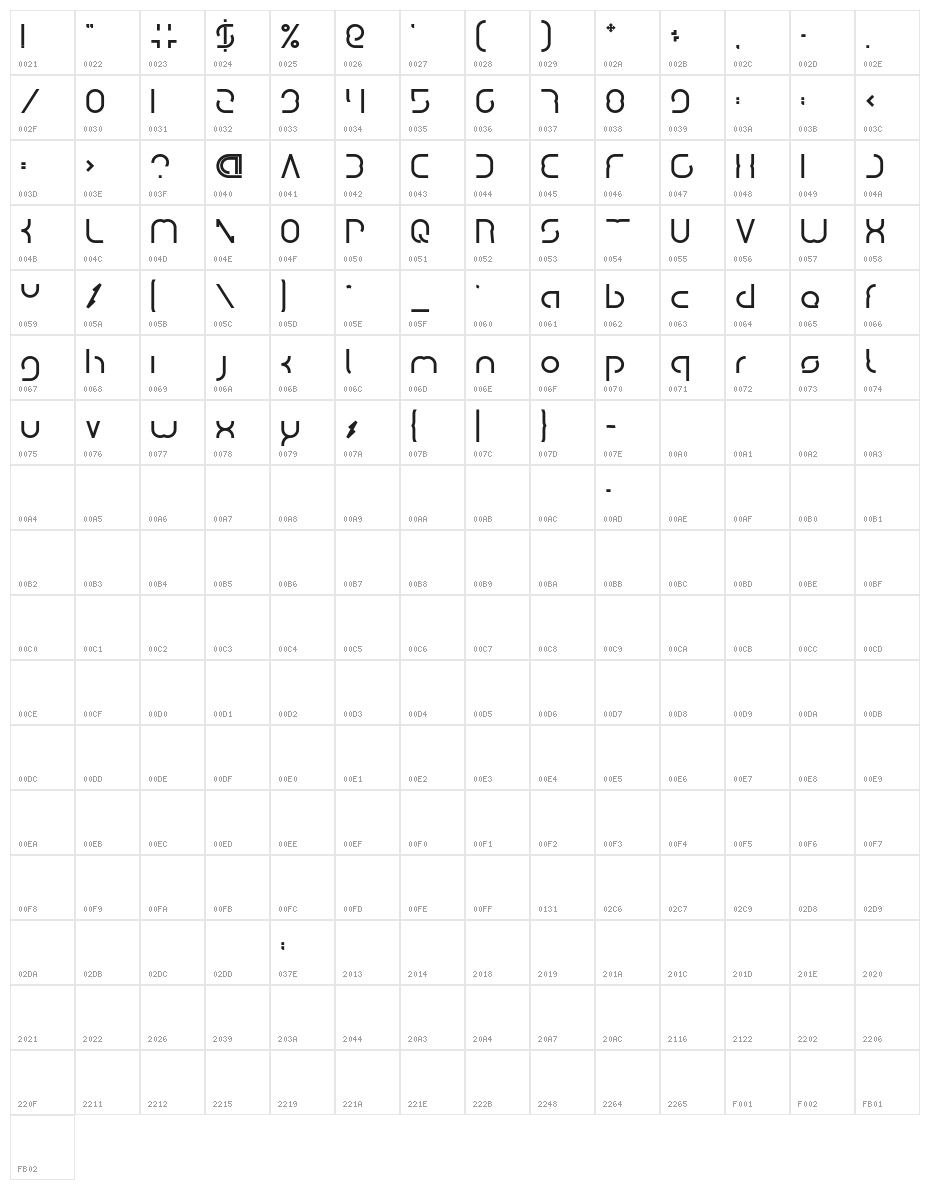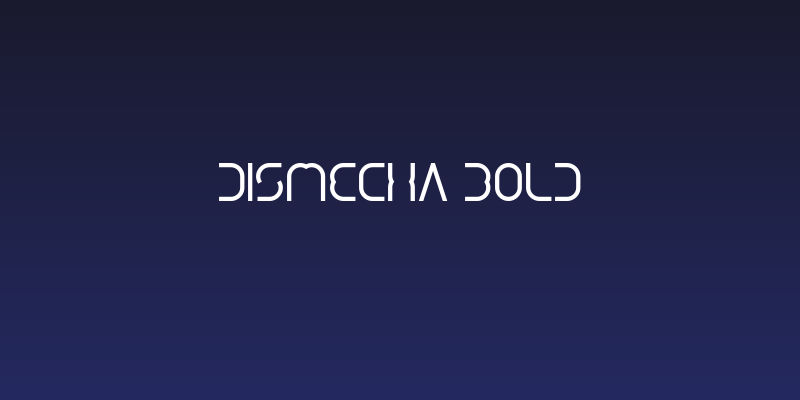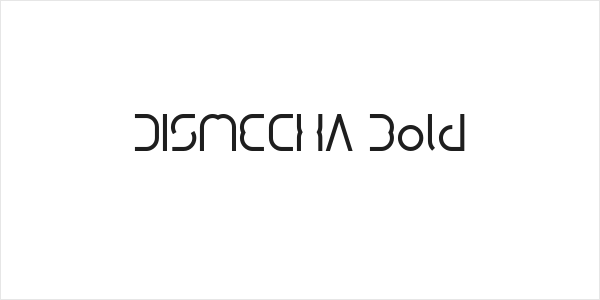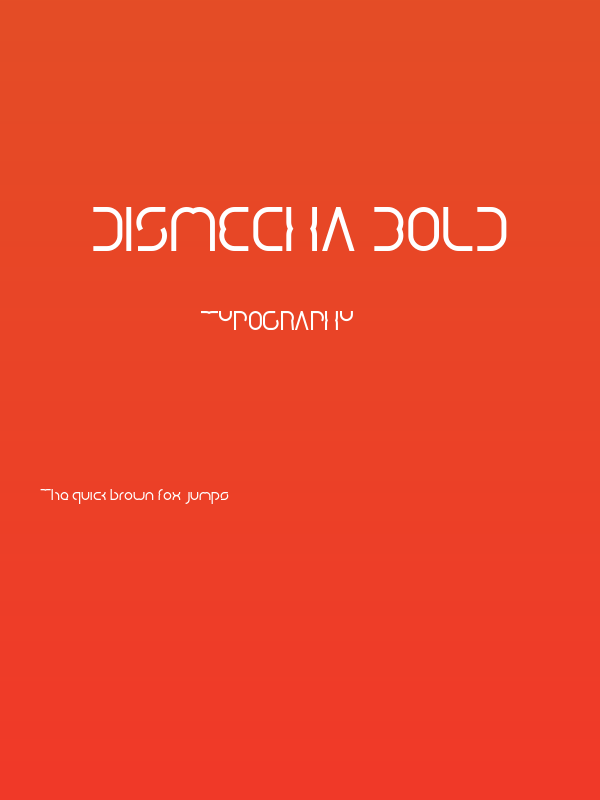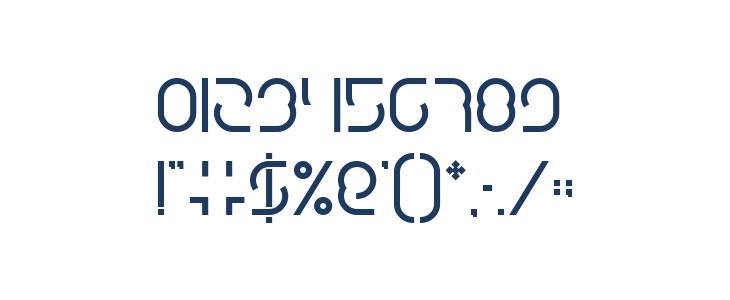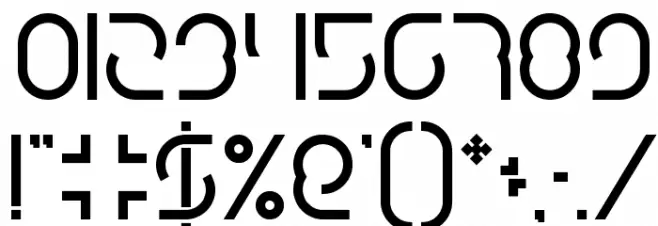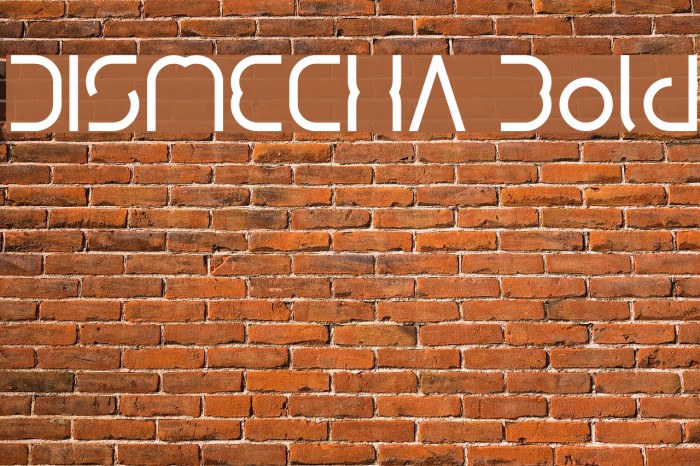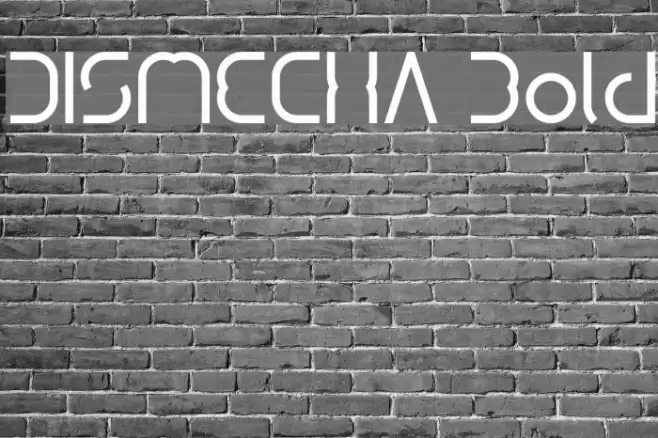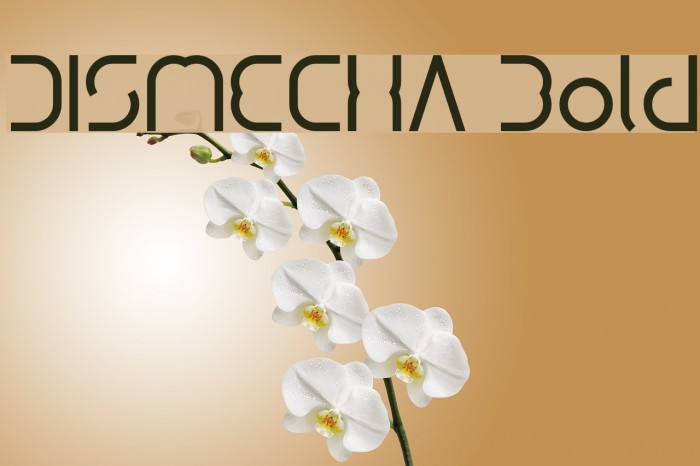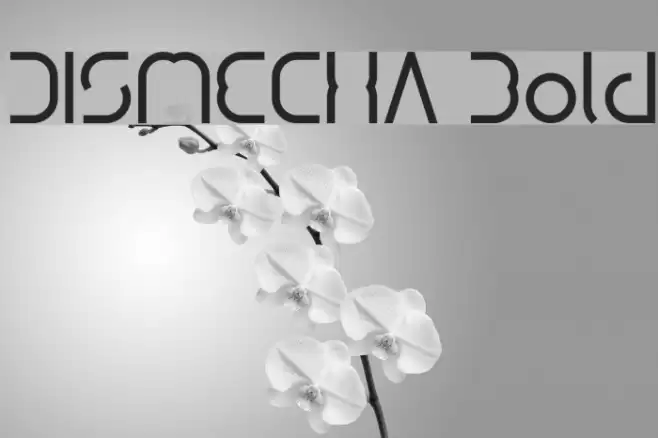
DISMECHA Bold Font
DISMECHA Bold Description
This font features a futuristic and geometric design, characterized by its bold and structured letterforms. The characters are composed of clean, straight lines and sharp angles, giving it a modern and technical appearance. The uppercase and lowercase letters maintain a consistent style, with some unique variations in the curves and terminals. The numerals and special characters follow the same design principles, ensuring uniformity across the typeface. The overall look is sleek and contemporary, suitable for projects that require a cutting-edge aesthetic.
| Use Case | Headlines, Logos, Digital interfaces |
| Proposed Projects | Ideal for technology branding, sci-fi themed designs, modern logos, and digital interfaces. |